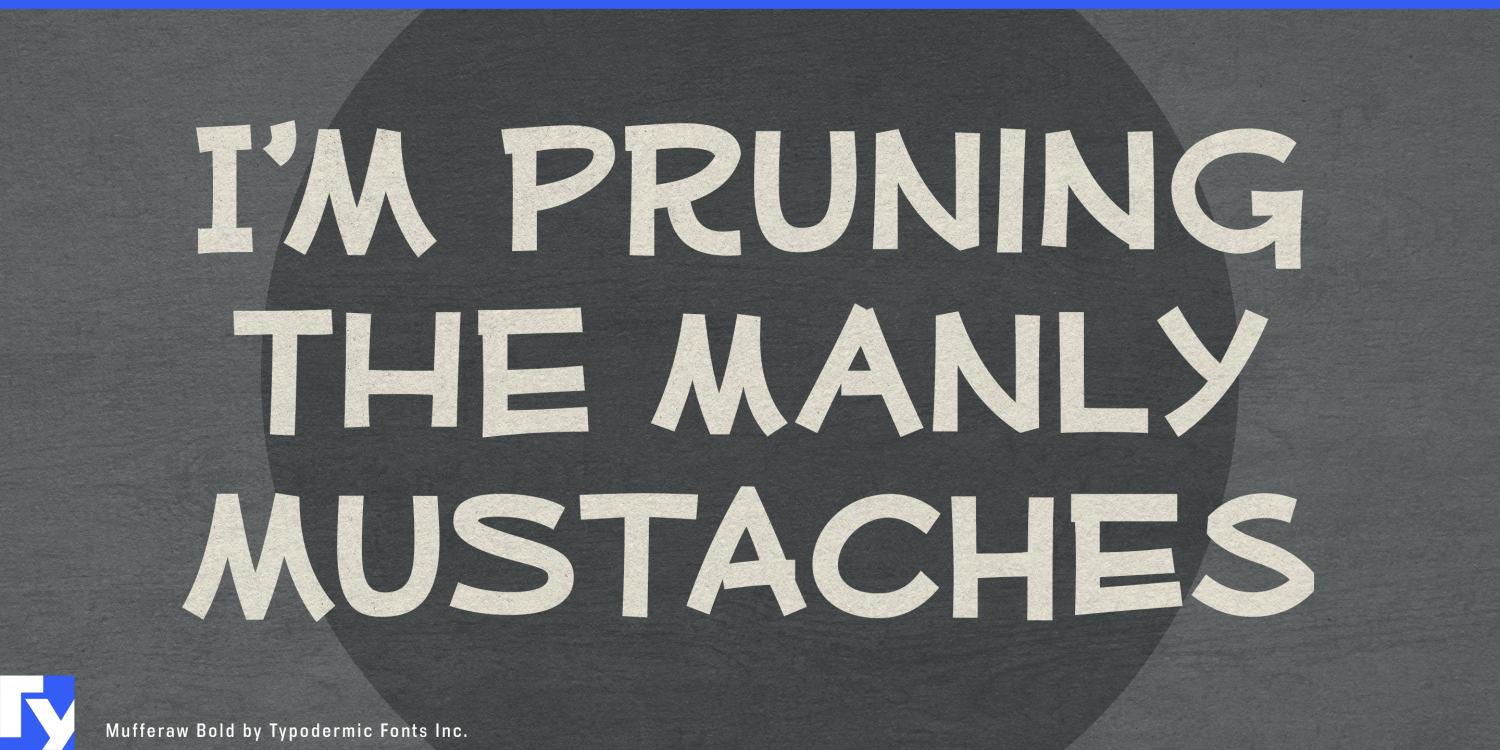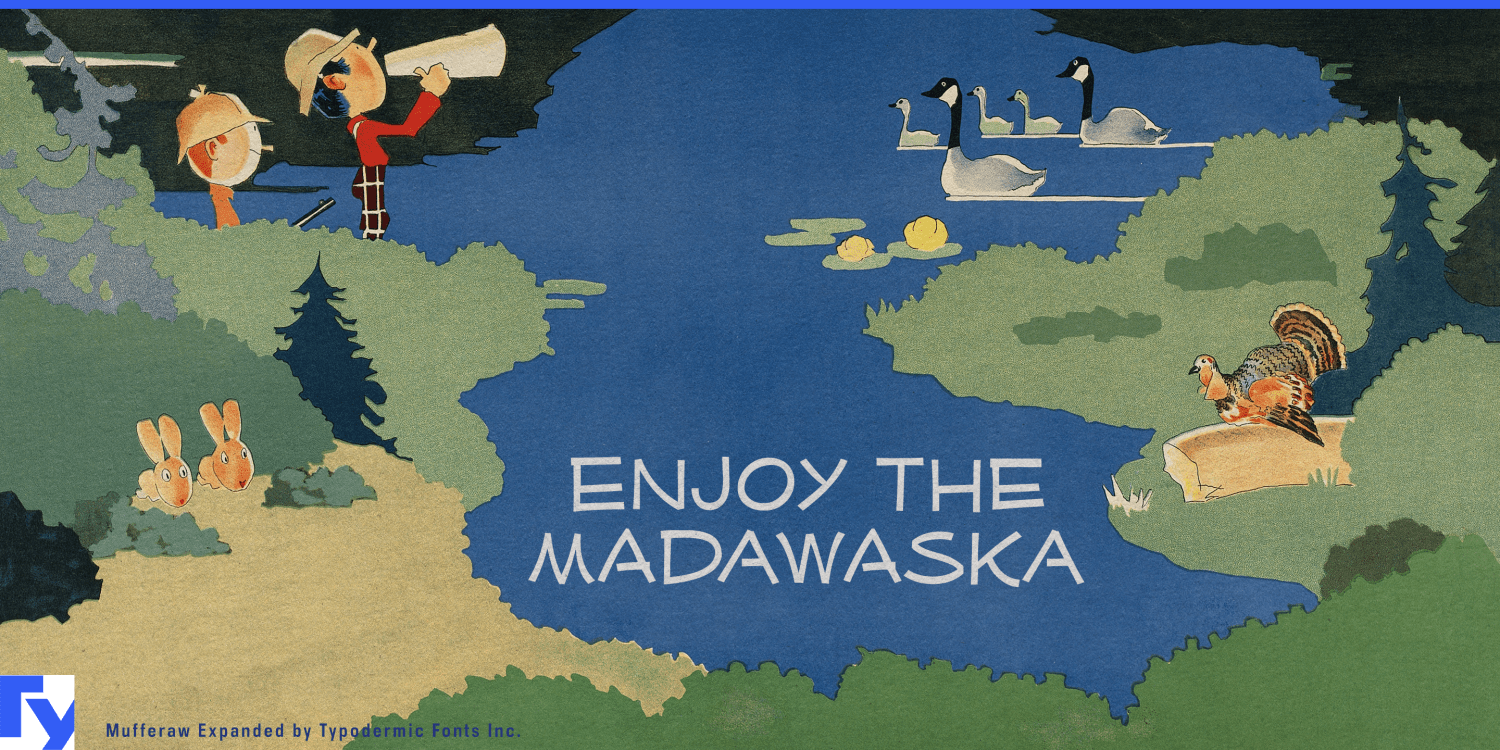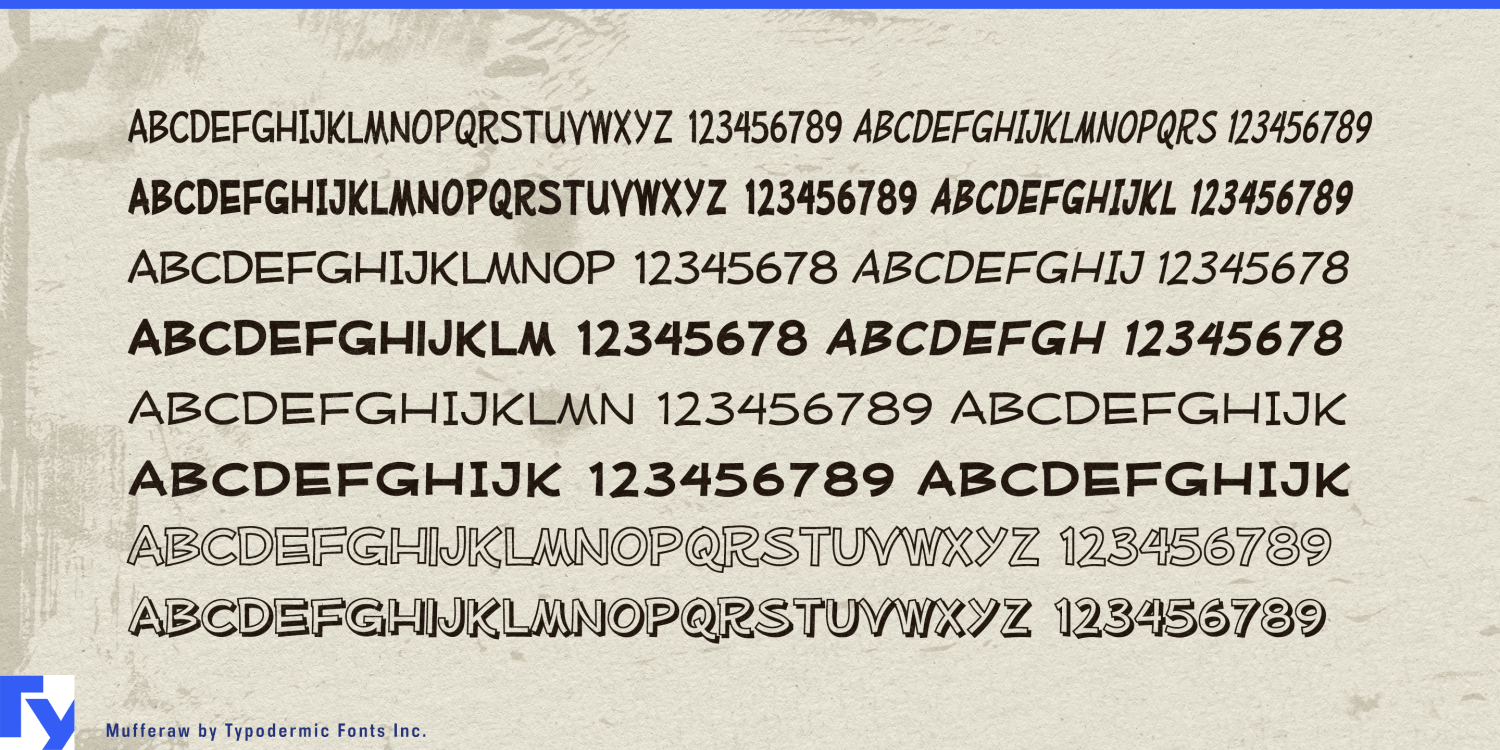
Mufferaw stands tall and proud like a mighty pine in the typographic forest, embodying the rugged spirit of the Ottawa Valley. This font doesn’t just speak—it bellows with the robust charm of a lumberjack’s hearty laughter. Imagine letters…